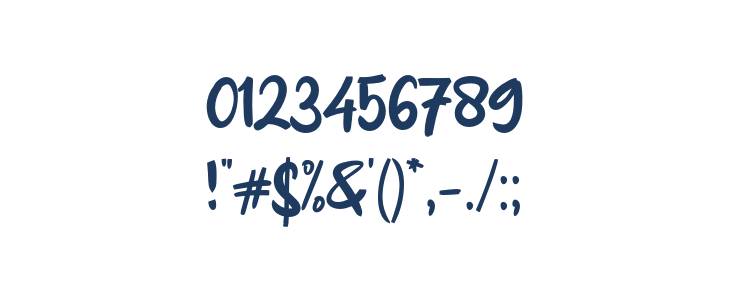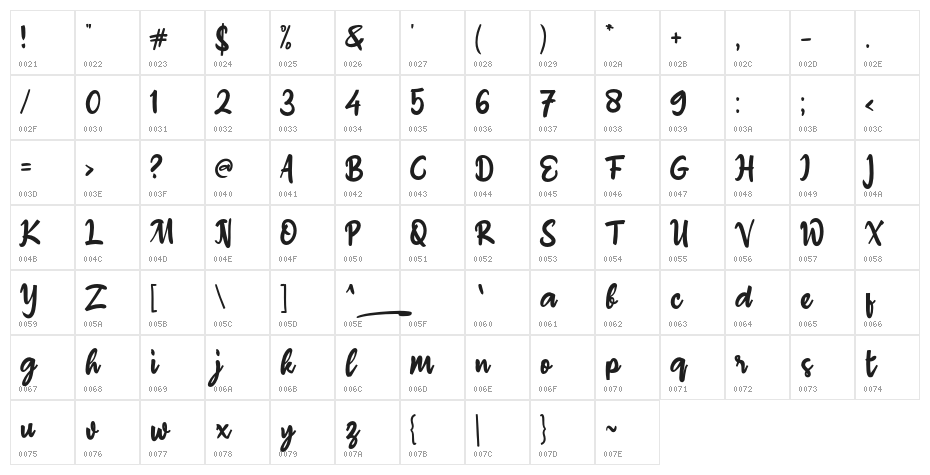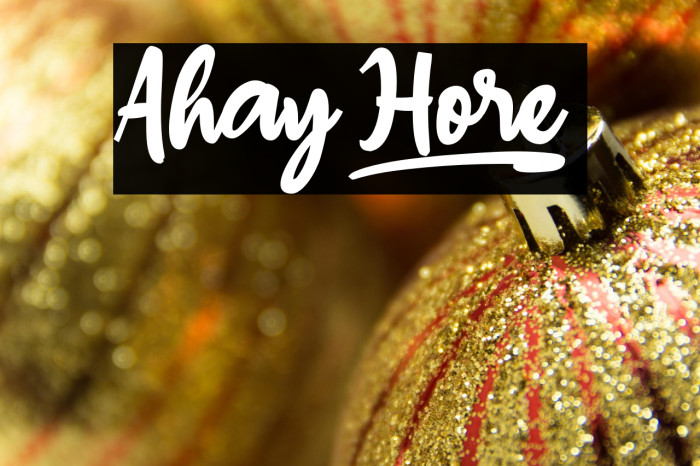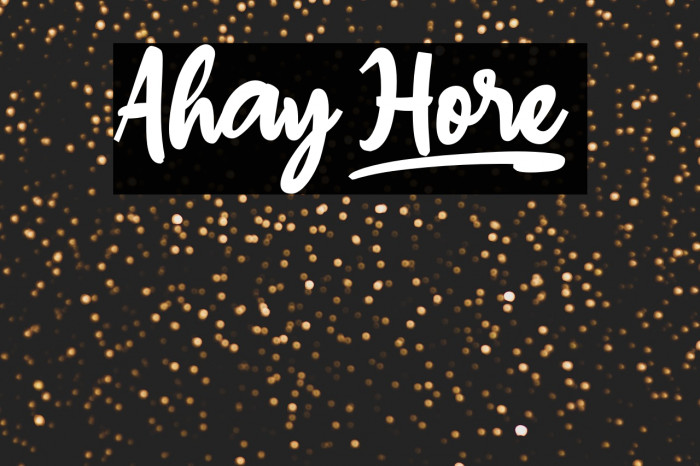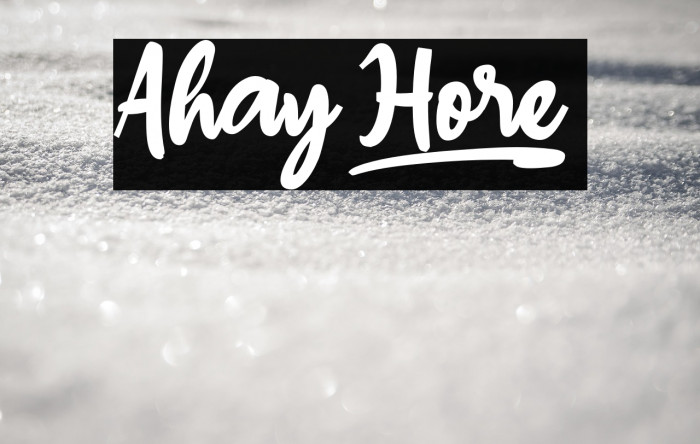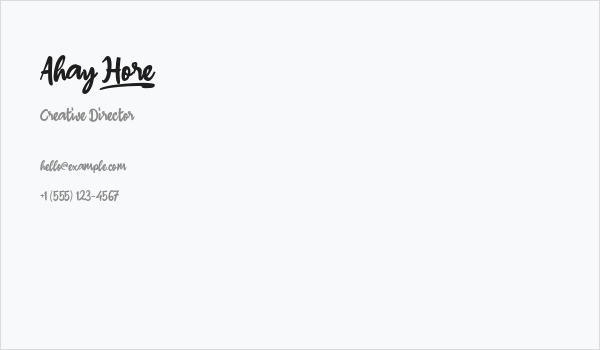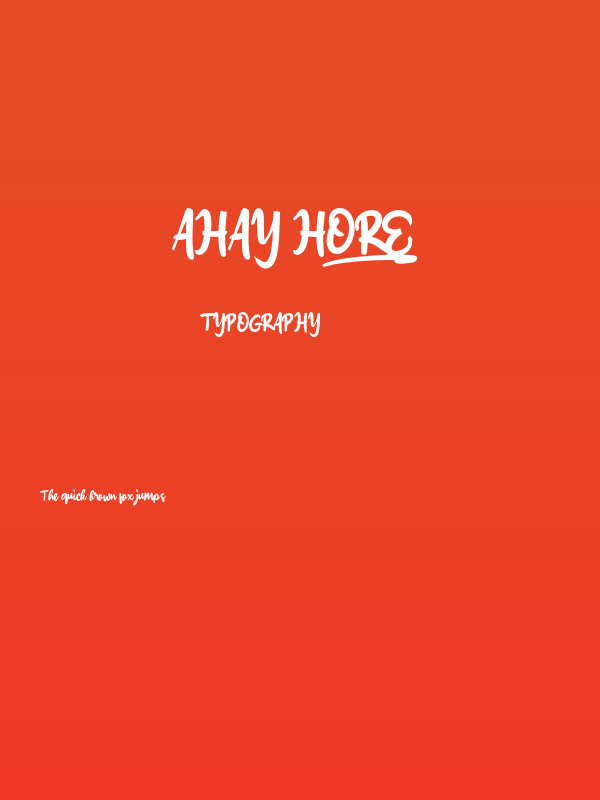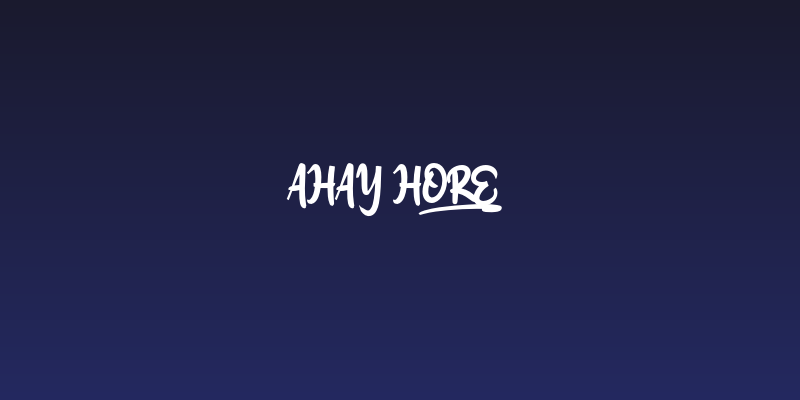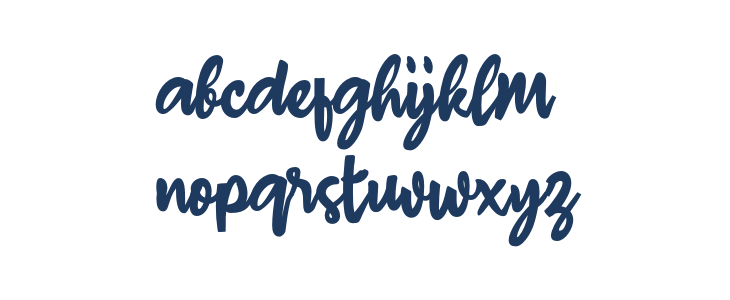
Ahay Hore_ Font
Ahay Hore_ Description
This font features a playful and energetic script style with bold, flowing strokes. The uppercase letters are tall and slightly slanted, giving a sense of movement and dynamism. The lowercase letters maintain a consistent flow, with smooth curves and connected strokes that enhance the handwritten feel. Numbers and special characters are crafted with the same lively style, making them visually cohesive with the alphabet. The overall appearance is bold and expressive, suitable for designs that require a personal touch.
| Proposed Projects | Ideal for greeting cards, invitations, branding projects, and social media graphics where a personal and lively touch is desired. |